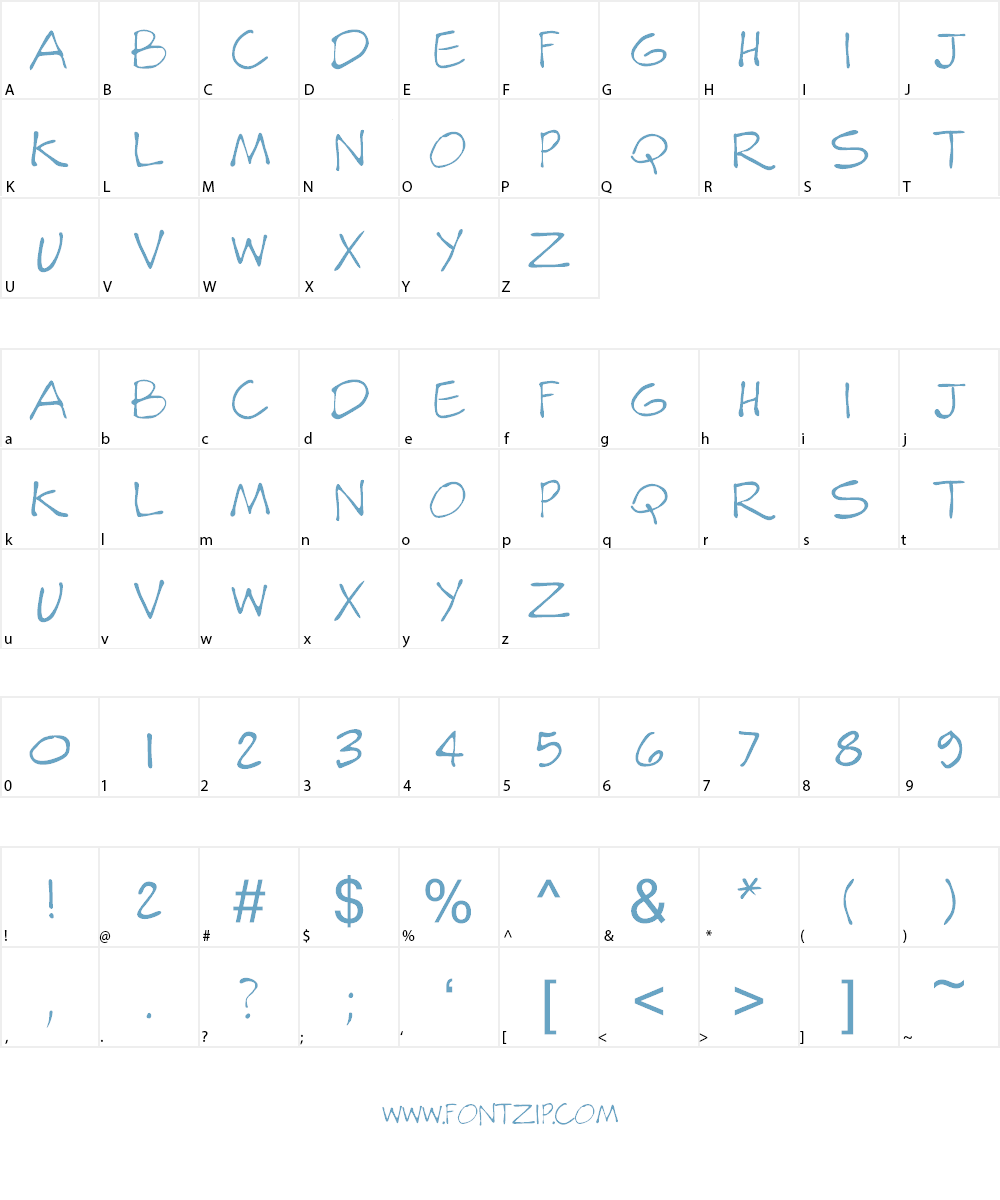
Blueprint77 is based on hand-lettering from blueprints for Star Wars props and scenery. This is version 1.0: there are no lowercase forms, no international characters, and limited punctuation. Letter spacing and kerning also need to be adjusted. Keep an eye out for the next revision!